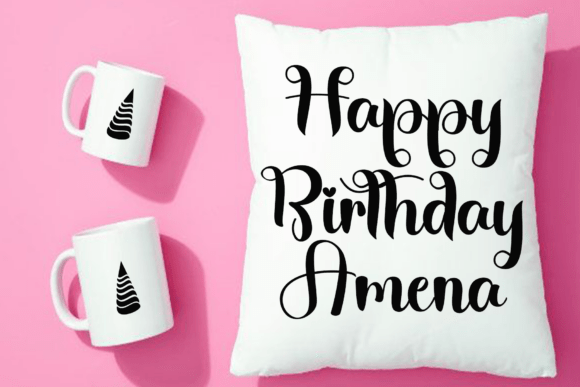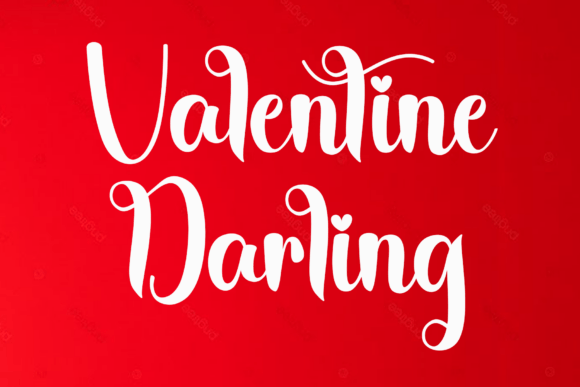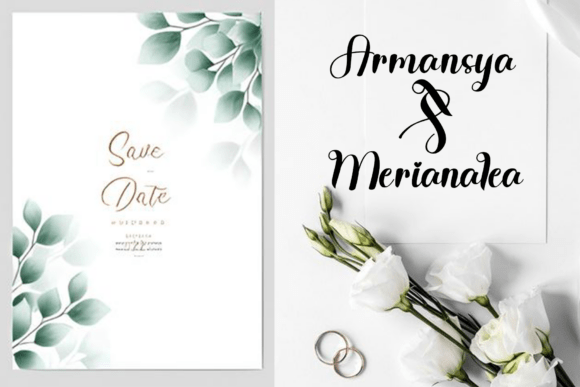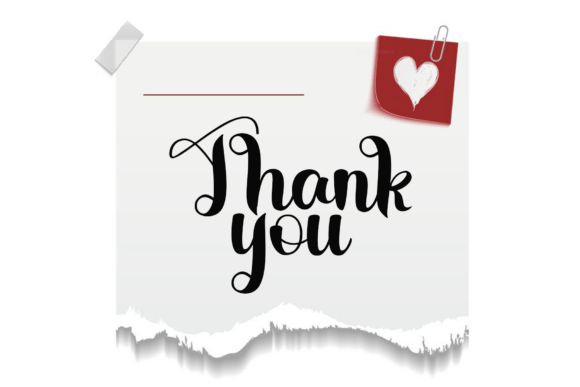
Introduction to Barbie Unicorn Font
Barbie Unicorn is a sweet and cursive handwritten font.
This gentle font will look gorgeous on a variety of design ideas It will add a joyful and romantic touch to each of your projects.
Key Features of Barbie Unicorn Font